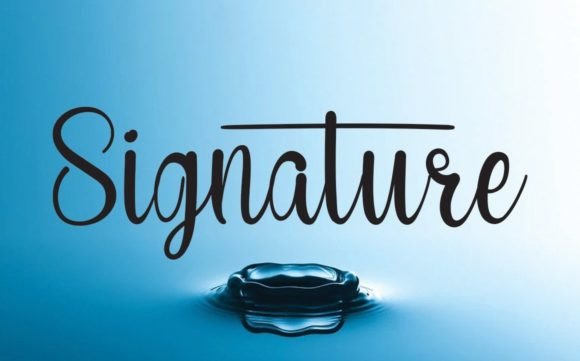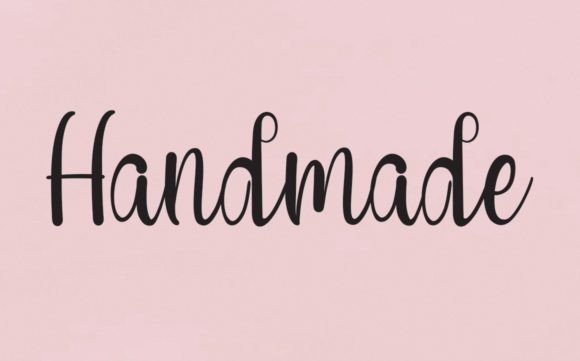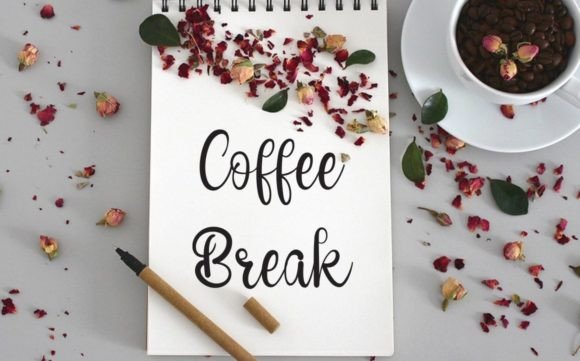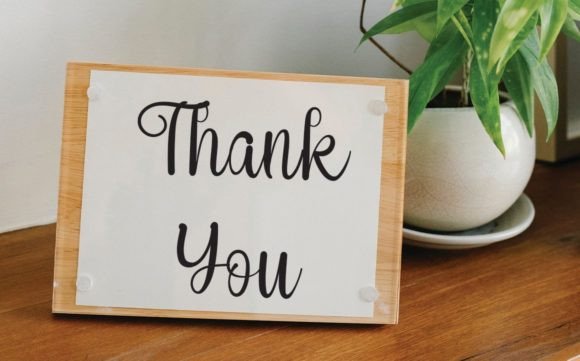
Outside Font
About Outside Font
Outside is a truly enchanting handwritten font that captures the essence of romance and charm. Its elegant and whimsical design lends a touch of magic to any project it graces. This versatile font opens up a world of creative possibilities, making it suitable for a wide spectrum of applications, from greeting cards to headlines.
The graceful strokes and fluid lines of Outside evoke a sense of enchantment, making it the perfect choice for projects that require a romantic and dreamy ambiance. Whether you’re crafting heartfelt greeting cards, designing captivating headlines, or creating invitations for a special event, this font adds a touch of sophistication and allure.
One of the standout features of Outside is its versatility. It seamlessly transitions from elegant to playful, allowing you to adapt it to various design contexts. Its timeless appeal ensures that your projects will have a lasting impact, creating a memorable experience for your audience.
Incorporating Outside into your designs guarantees an added layer of charm and romance. The font’s enchanting style sets the stage for captivating storytelling, making it ideal for projects that aim to evoke emotion and create a sense of wonder. Its ability to add a romantic feel to your text ensures that your messages are conveyed with grace and elegance.
Don’t miss the opportunity to infuse your next project with the enchanting allure of Outside. Whether you’re working on wedding invitations, love letters, or any creative endeavor that requires a touch of romance, this font is sure to elevate your designs and leave a lasting impression on anyone who beholds them. Let Outside weave its magical spell and transform your ideas into enchanting works of art.